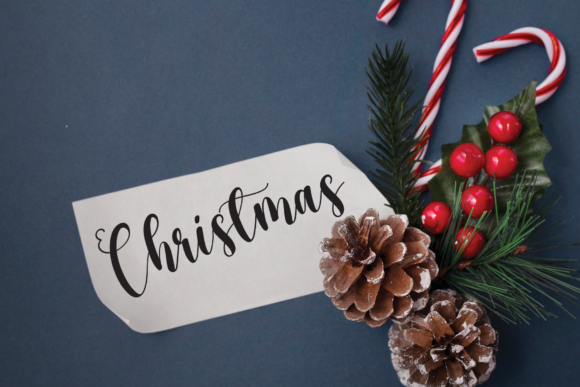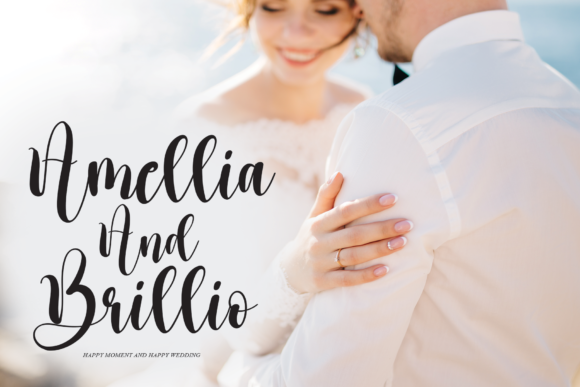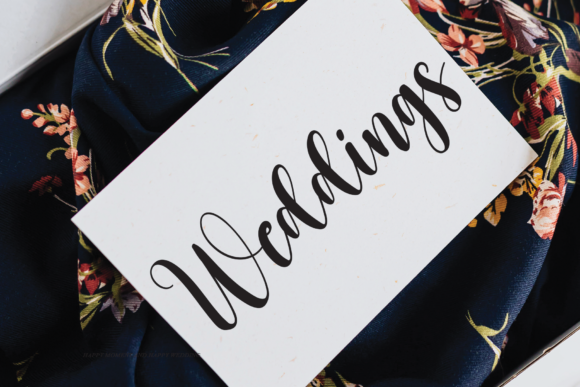
Boho & Babe Font
About Boho & Babe Font
Boho & Babe is an appealing handwritten font. This adaptable script font has a wide spectrum of applications ranging from greeting cards to headlines and is guaranteed to add a fresh and alluring feel to your next project.